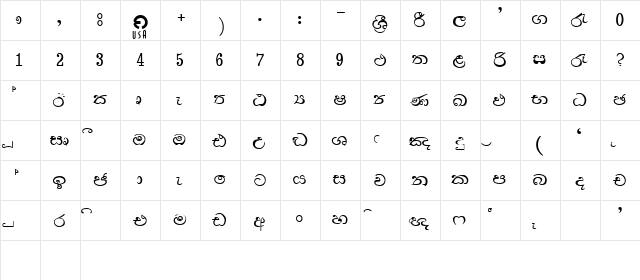
Hemawathy Regular Font Preview
Hemawathy Regular
Hemawathy Regular Font Details
Design Context for Hemawathy Typeface
Hemawathy is a composed and adaptable typeface that performs quietly and consistently across a wide range of design contexts.